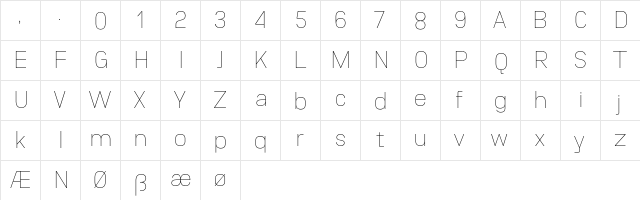
Unione *Demo ExtraLight DEMO
Design Context for Unione *Demo Typeface
Unione *Demo offers clean, dependable letterforms without strong stylistic allegiance, making it a practical choice for designers who need flexibility. The delicate stroke weight brings airiness and refinement to layouts.